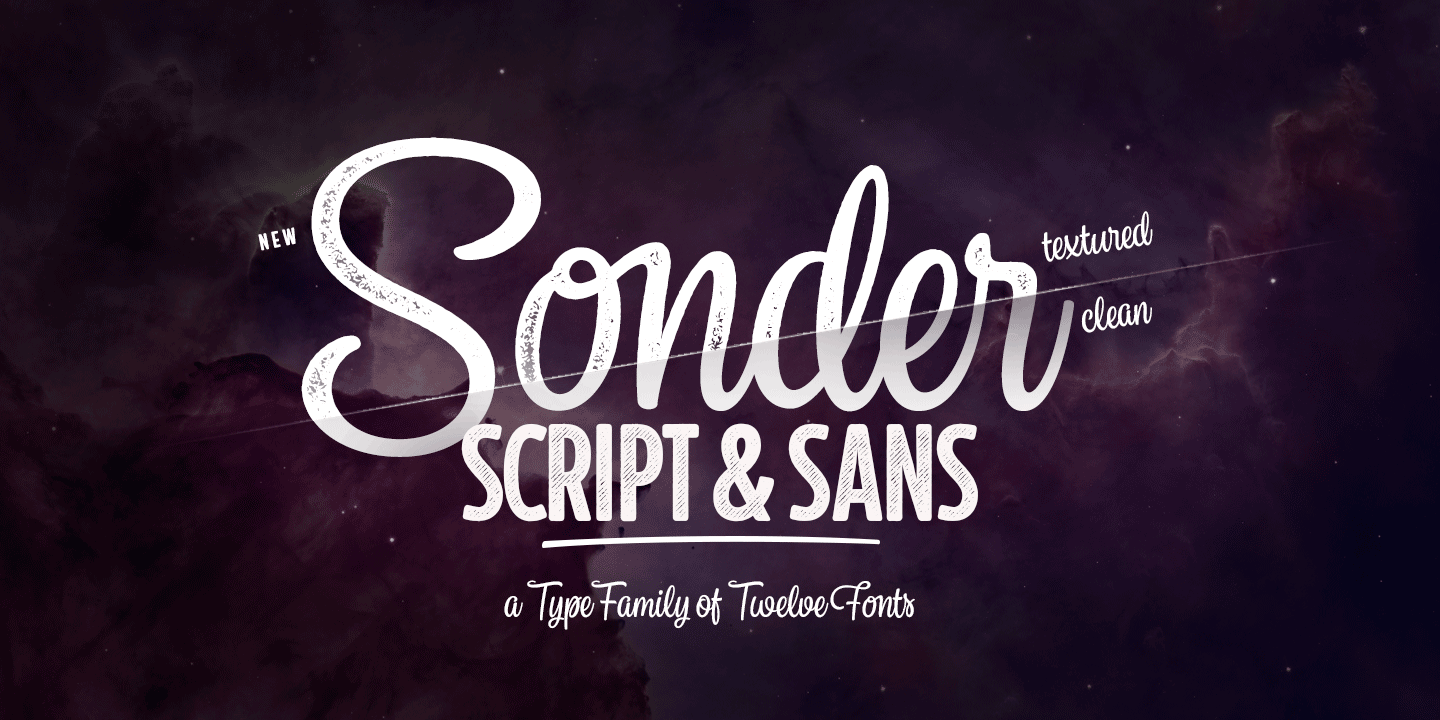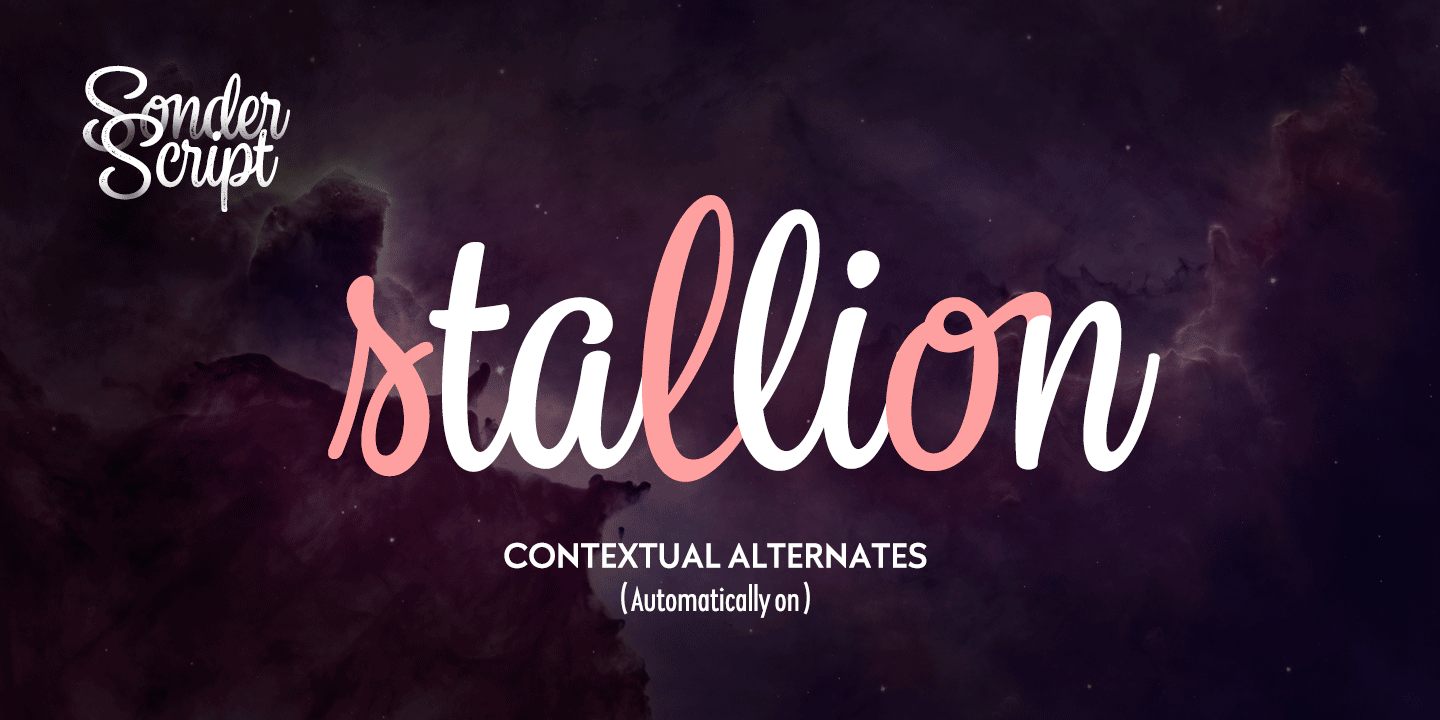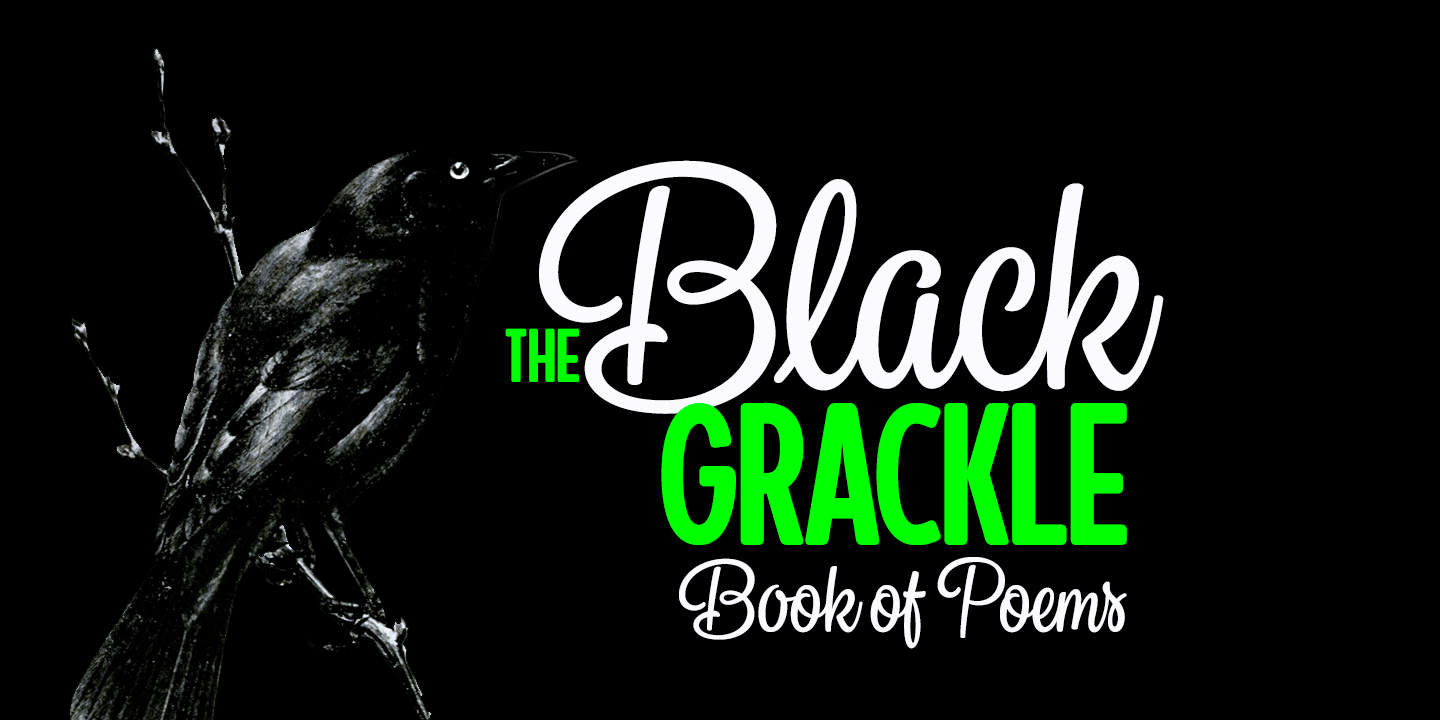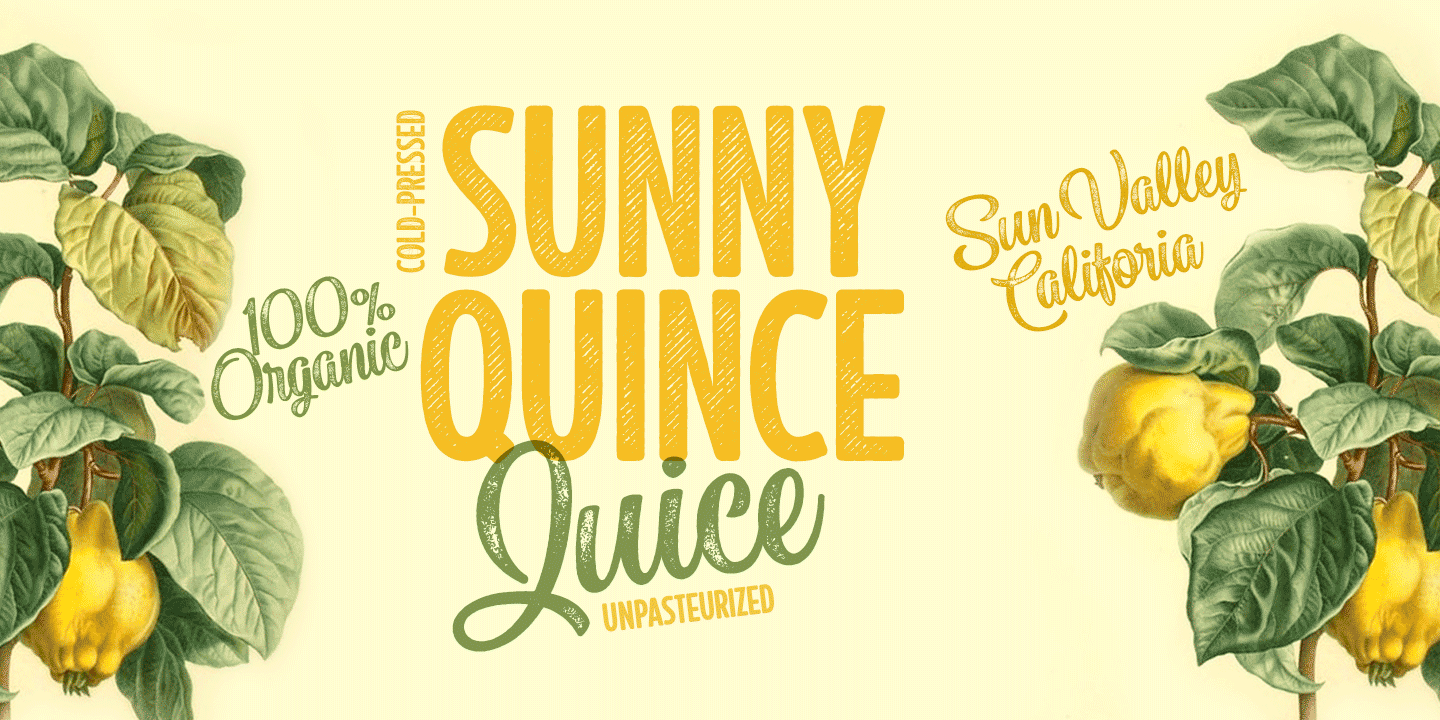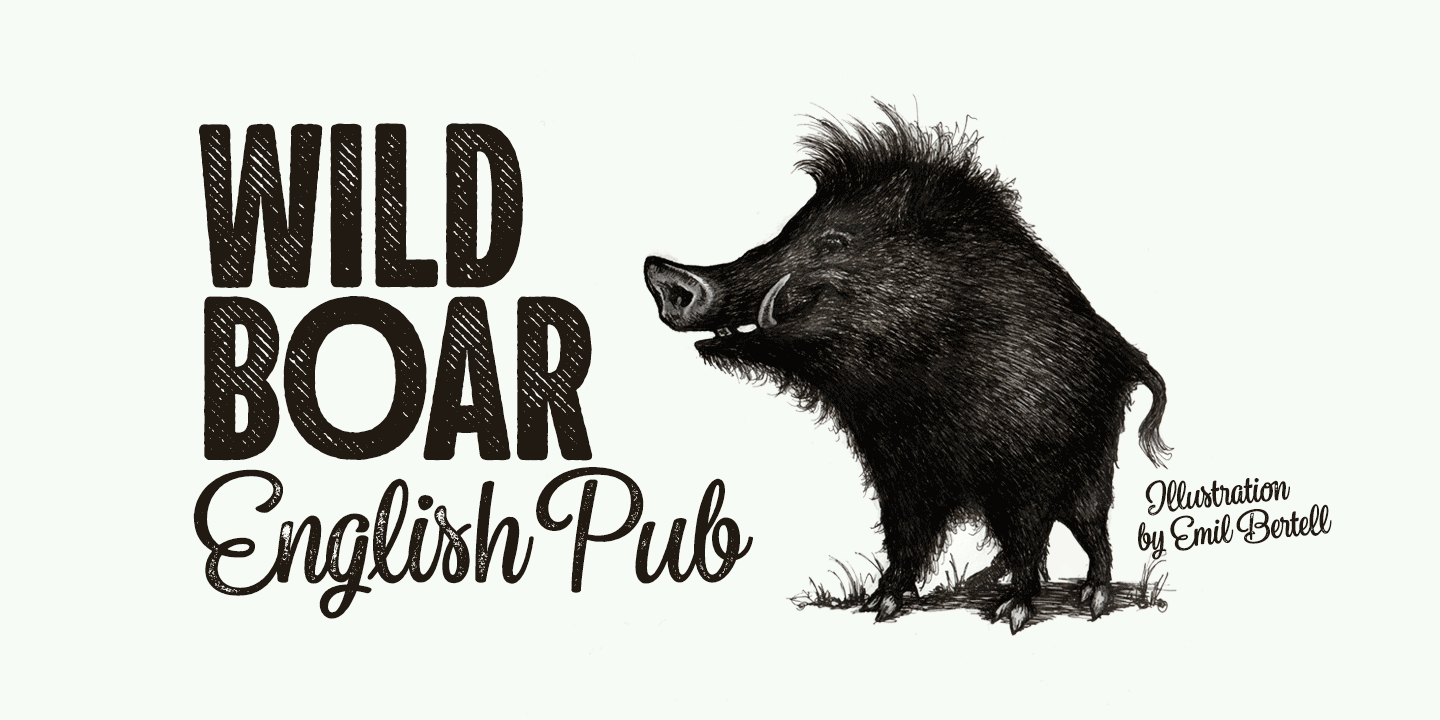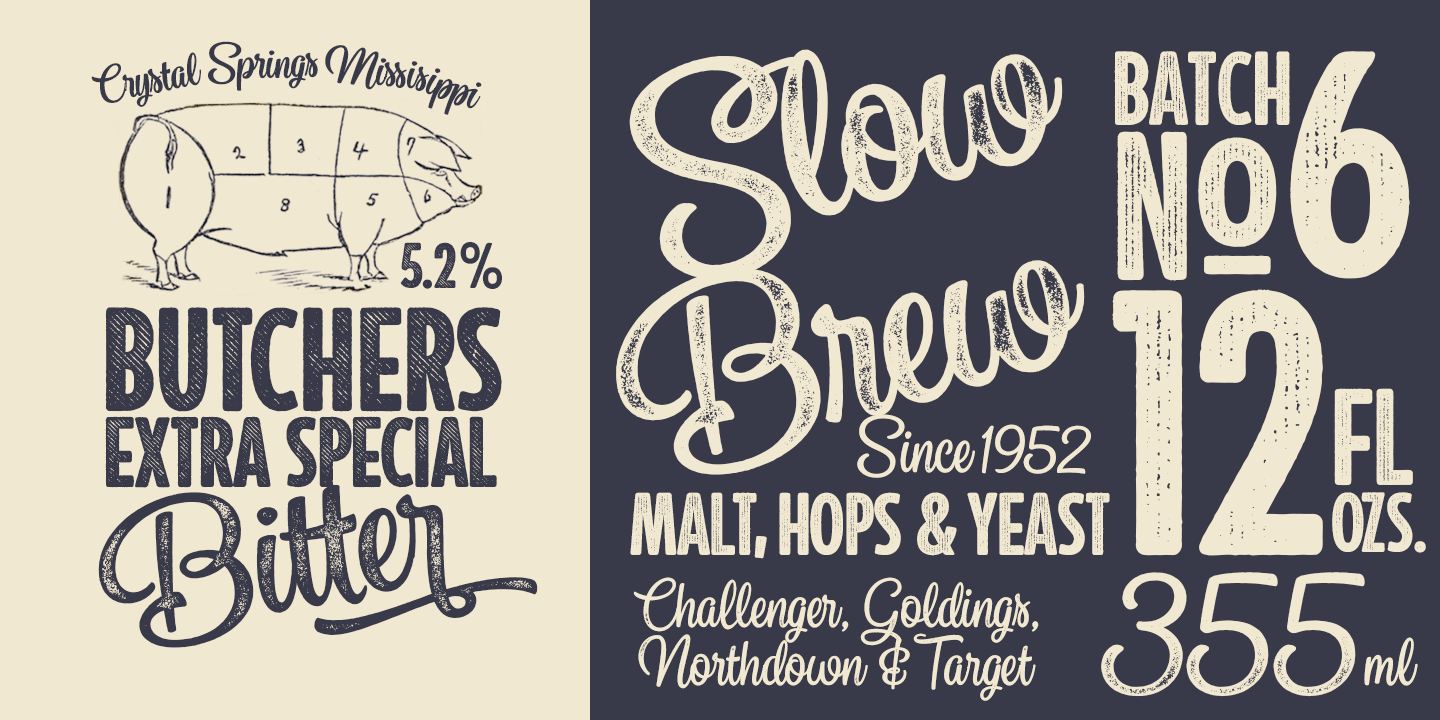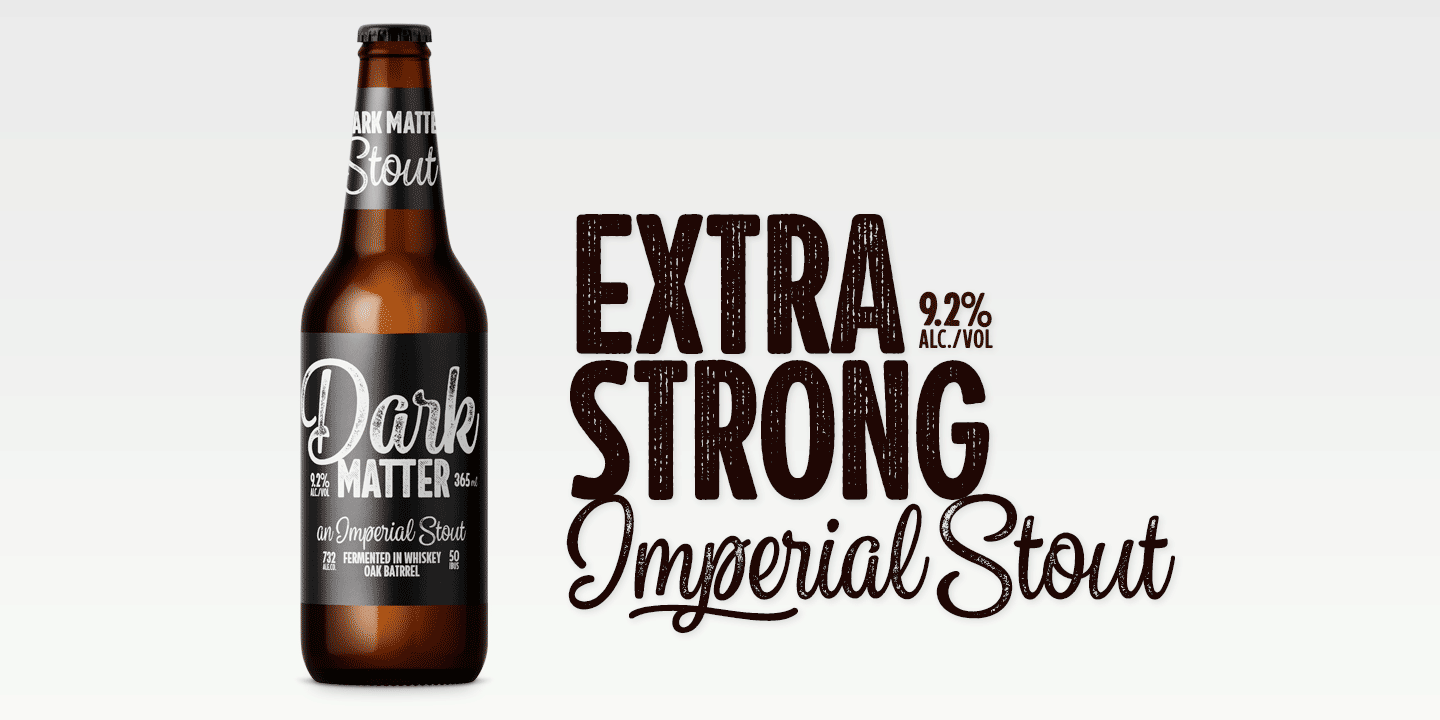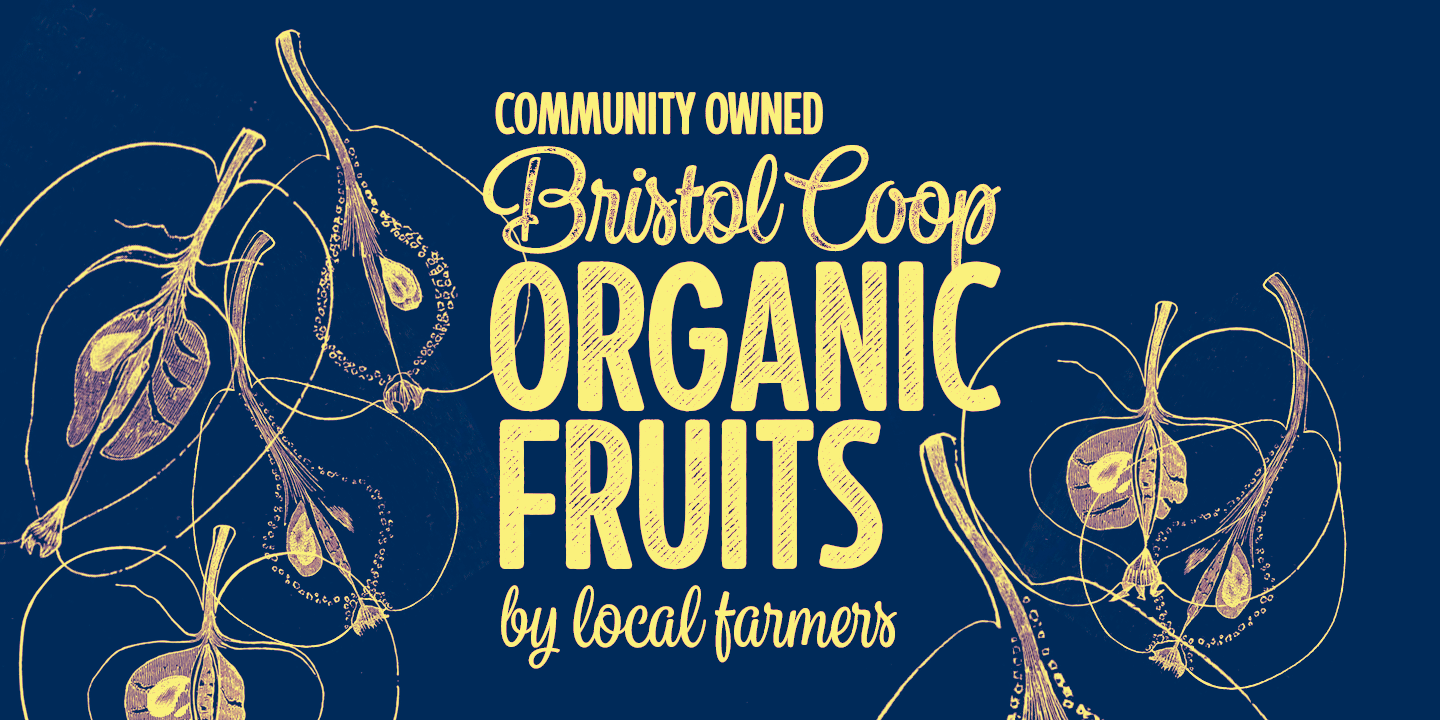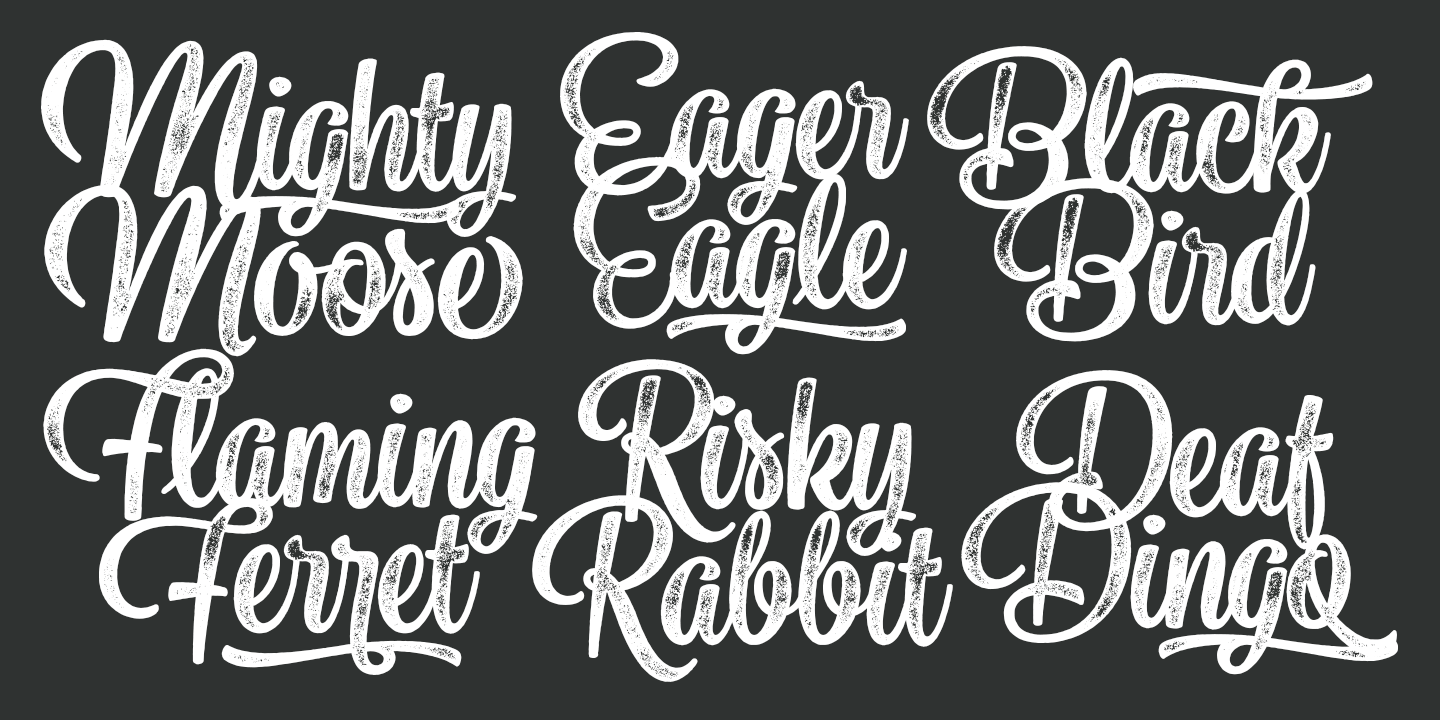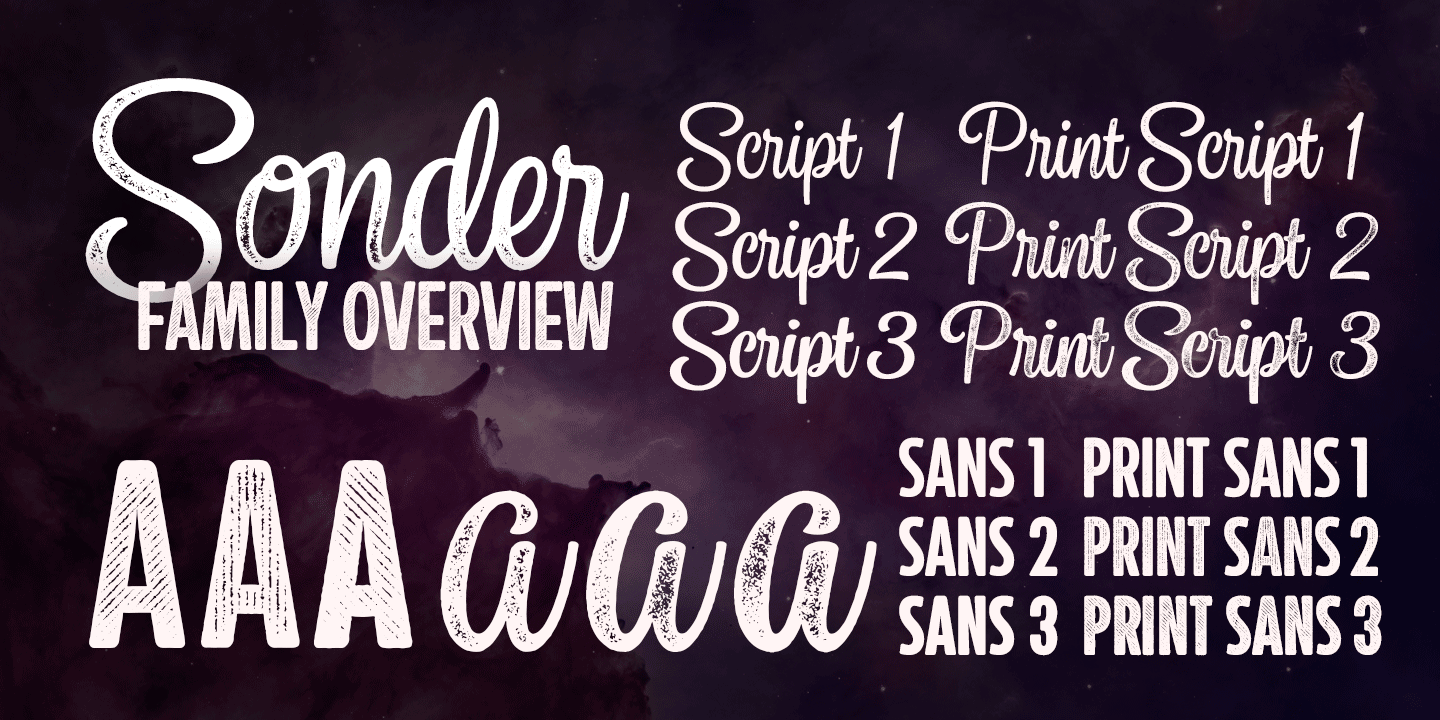
Sonder
Font Family by Fenotype
Sonder is a smooth brush Script and condensed Sans family of three weights on both. Both Script and Sans work as standalone fonts but they're designed to go nicely together. Combine with Sonder Extras for smooth brush strokes for ambitious headlines, logos & posters.
Sonder comes with a clean version and a ?Print? version of each cut. Print versions have delicately rugged outlines and print texture inside.
Sonder Script is packed with several OpenType features: Contextual Alternates and Standard Ligatures are automatically on to keep the text vibrant. If you need even more sparkly letters try Swash, Stylistic or Titling Alternates. The Scripts are PUA encoded and you can access extras from character map in most design softwares.